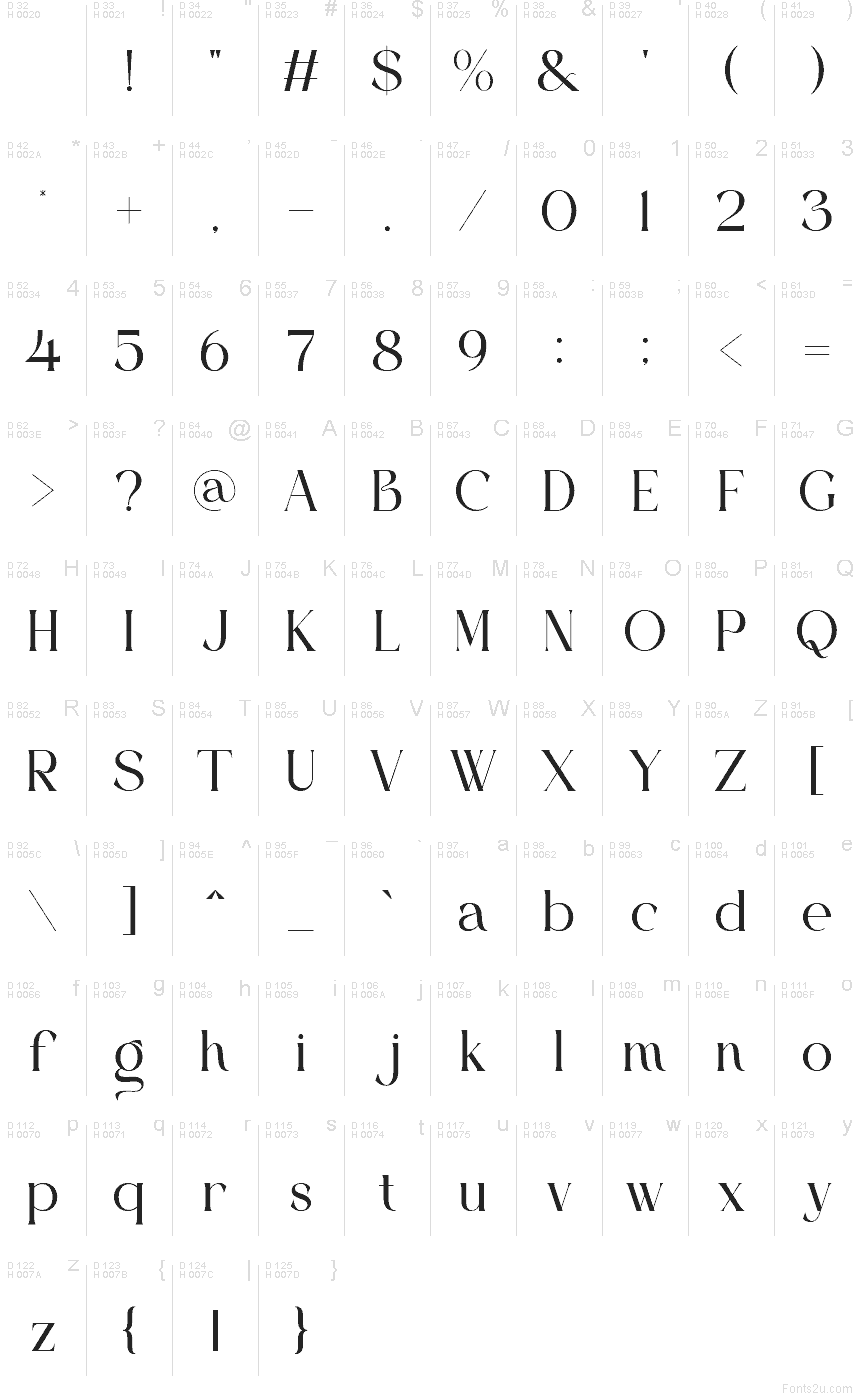
Amorha Regular
Amorha font by ErmediaStudio is a free serif typeface with a striking, almost calligraphic presence. Thick, inky strokes melt into hairline thins, while the wide, circular bowls add a soft, romantic pull to each word. The overall effect feels luxurious and modern at once, like a fashion masthead or perfume logo caught mid-swish.
Using Amorha, headlines instantly gain a couture edge, making this free font a natural fit for wedding invitations, beauty and skincare branding, fashion editorials, boutique packaging, and hero graphics on websites or social posts. It shines at larger sizes where its delicate details can really breathe; for body copy, pair Amorha with a simple geometric sans-serif to keep layouts balanced and readable.